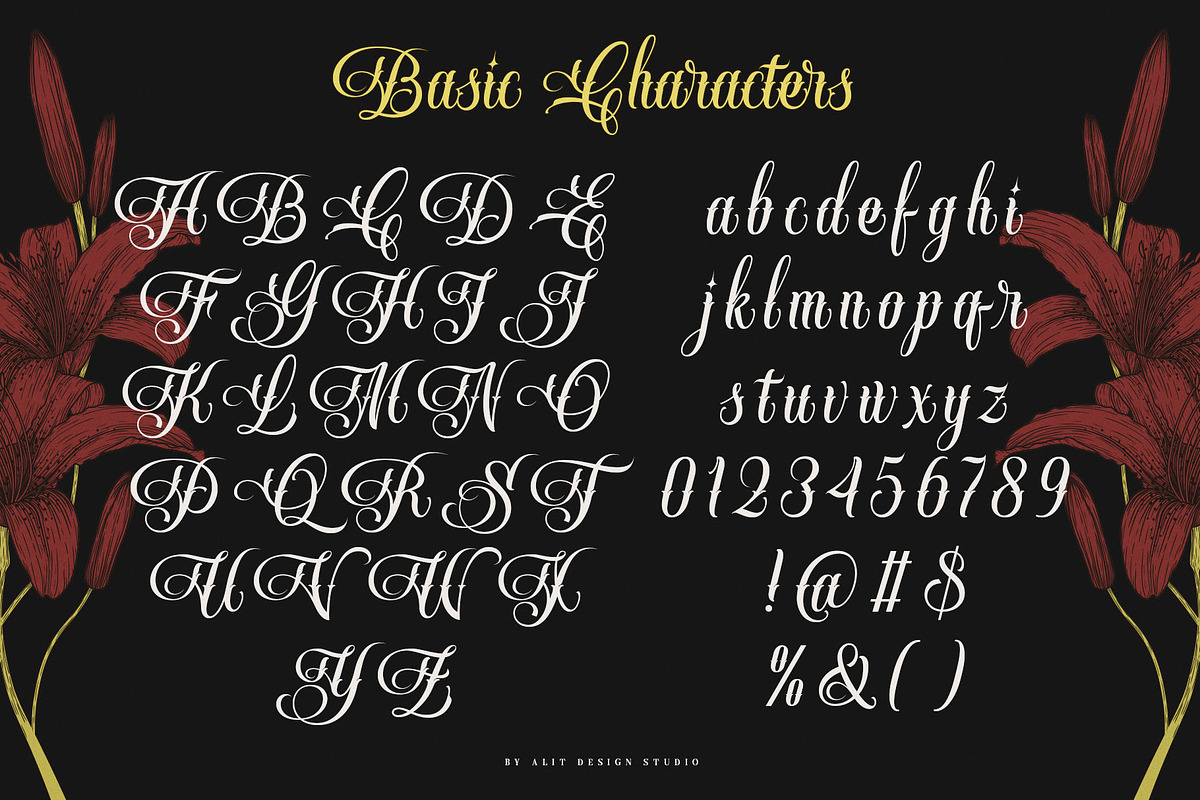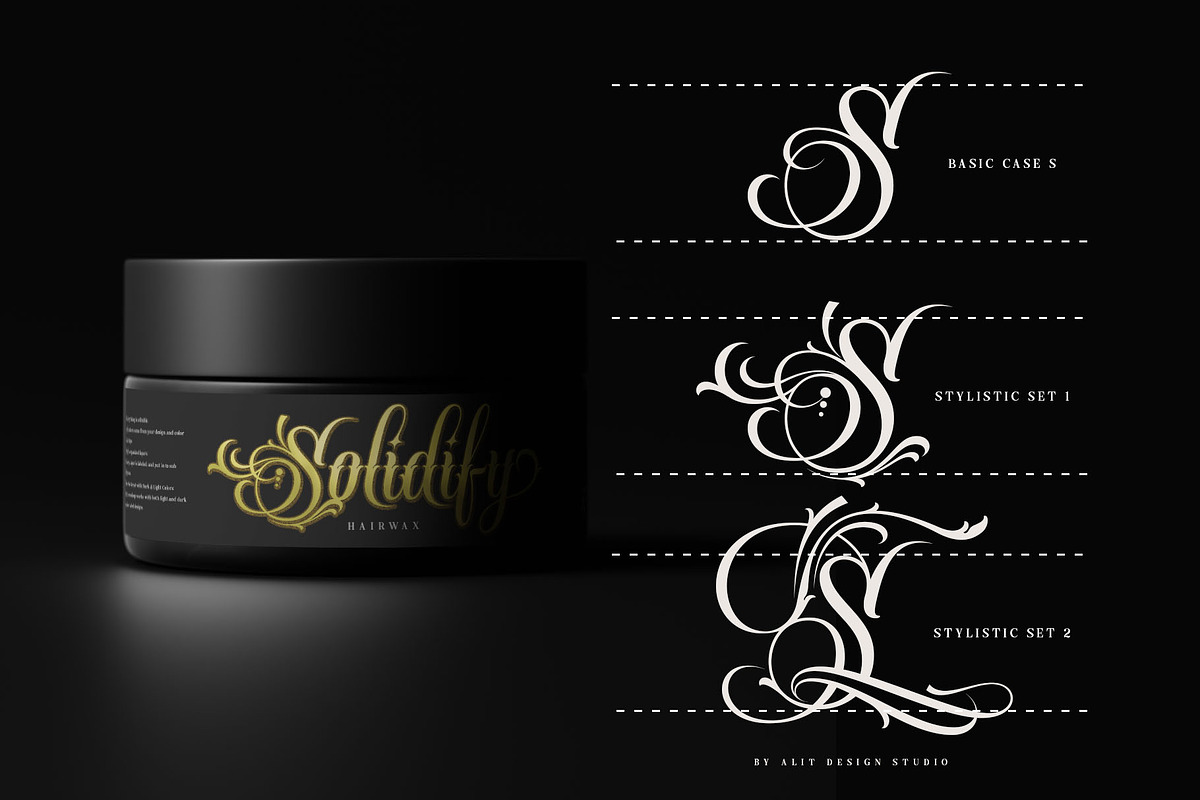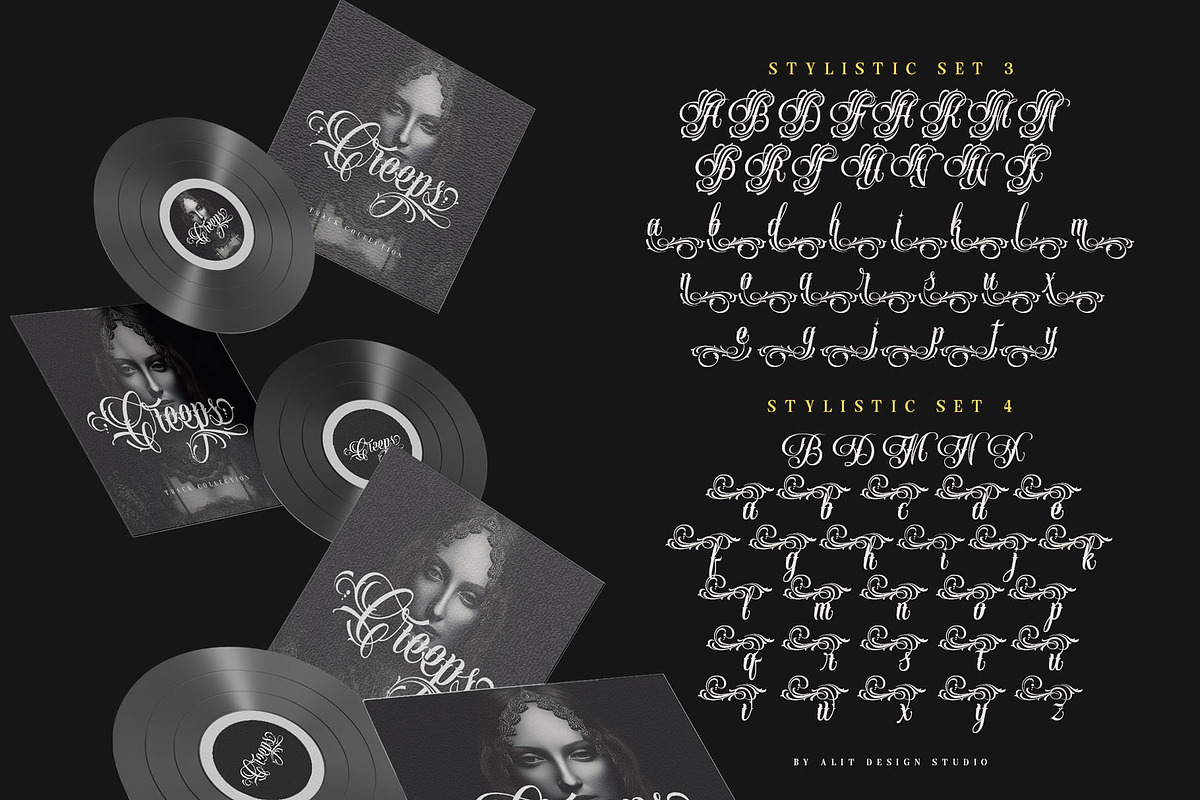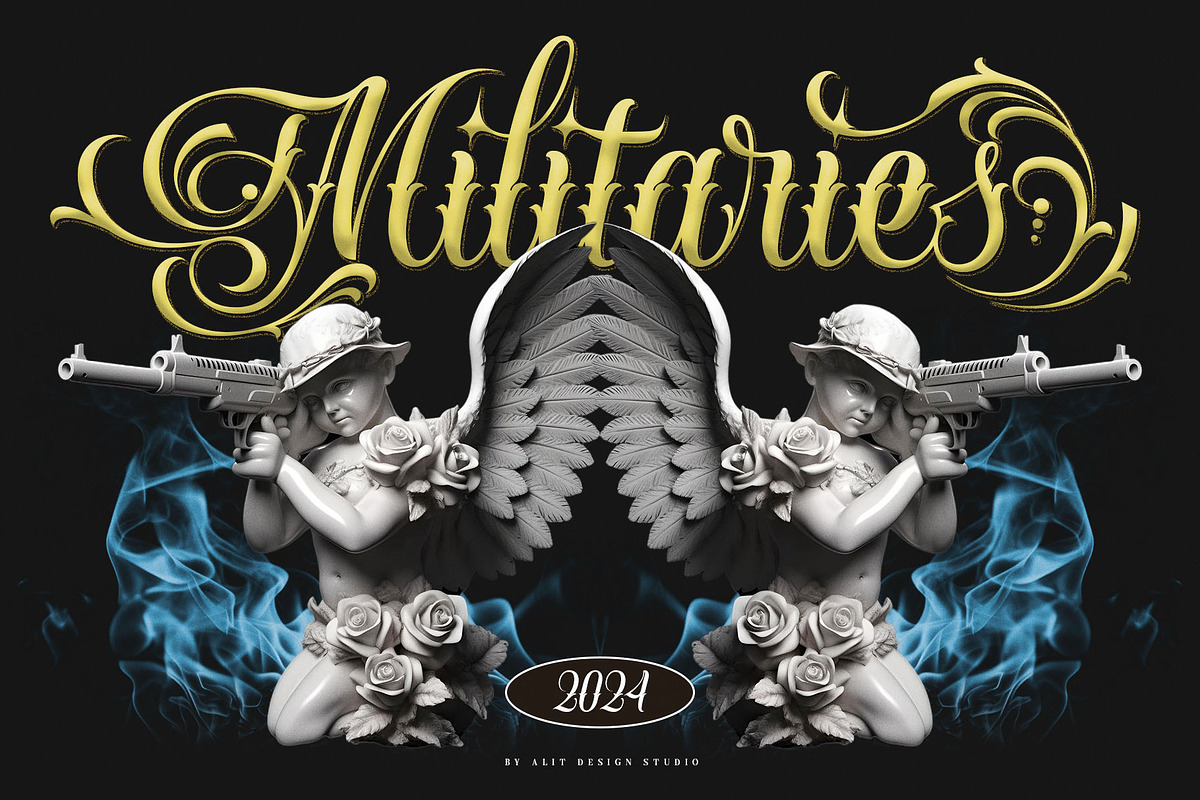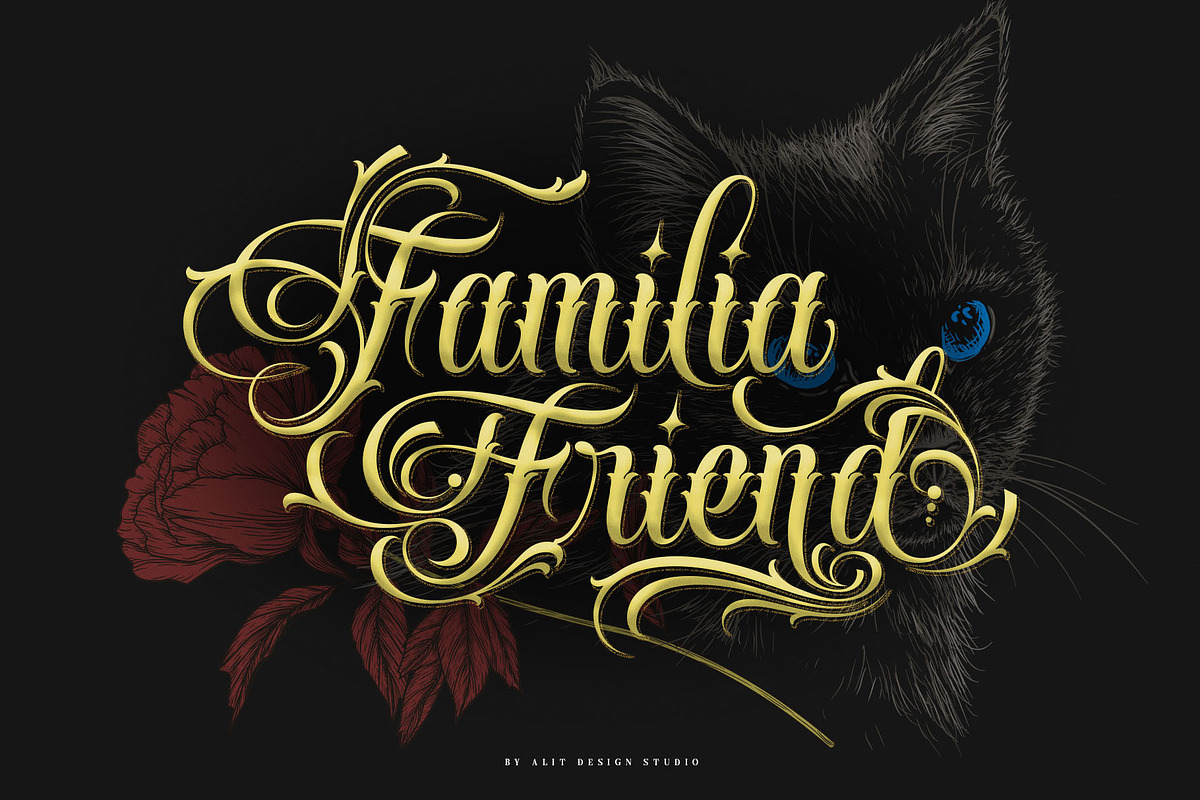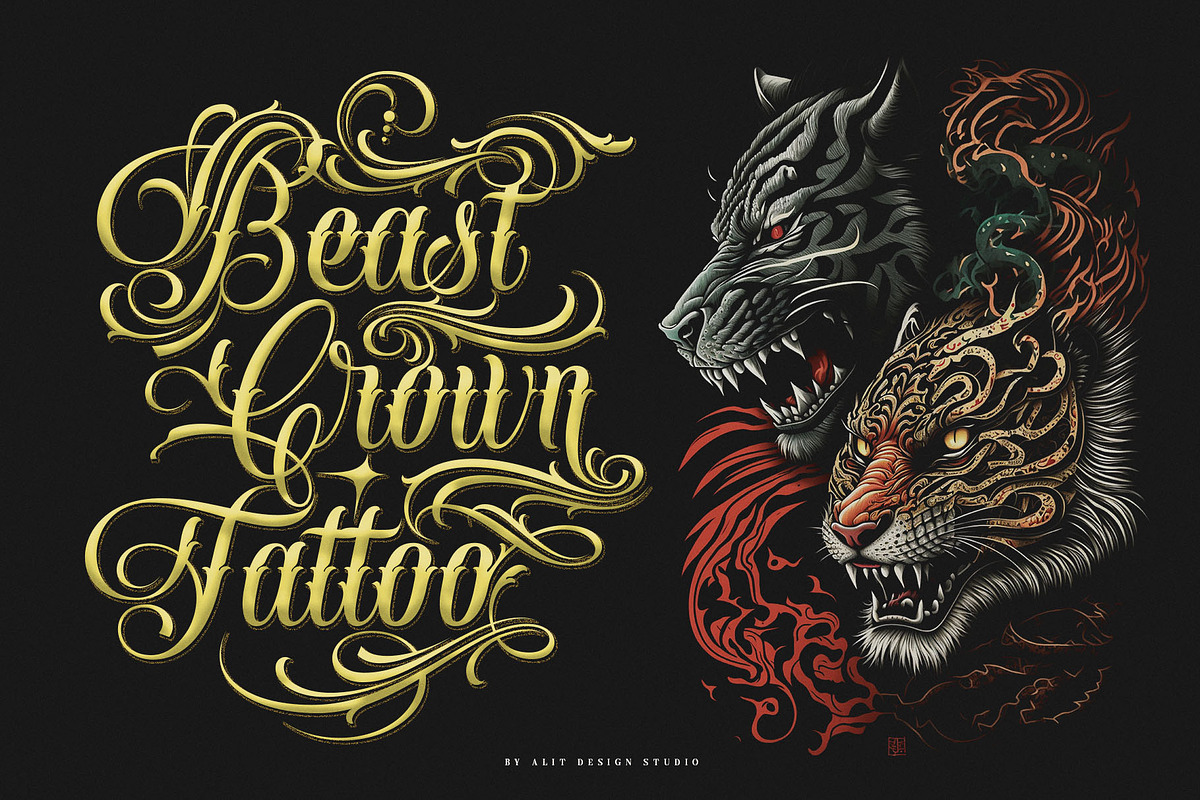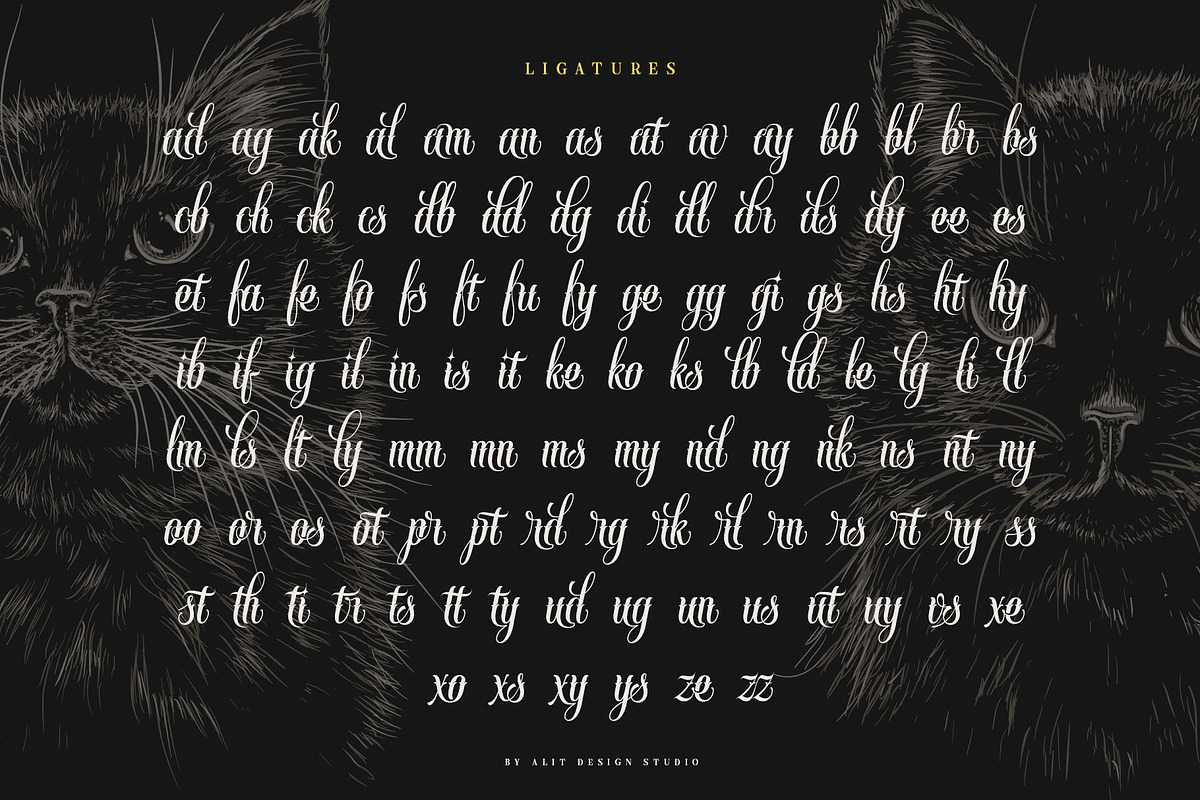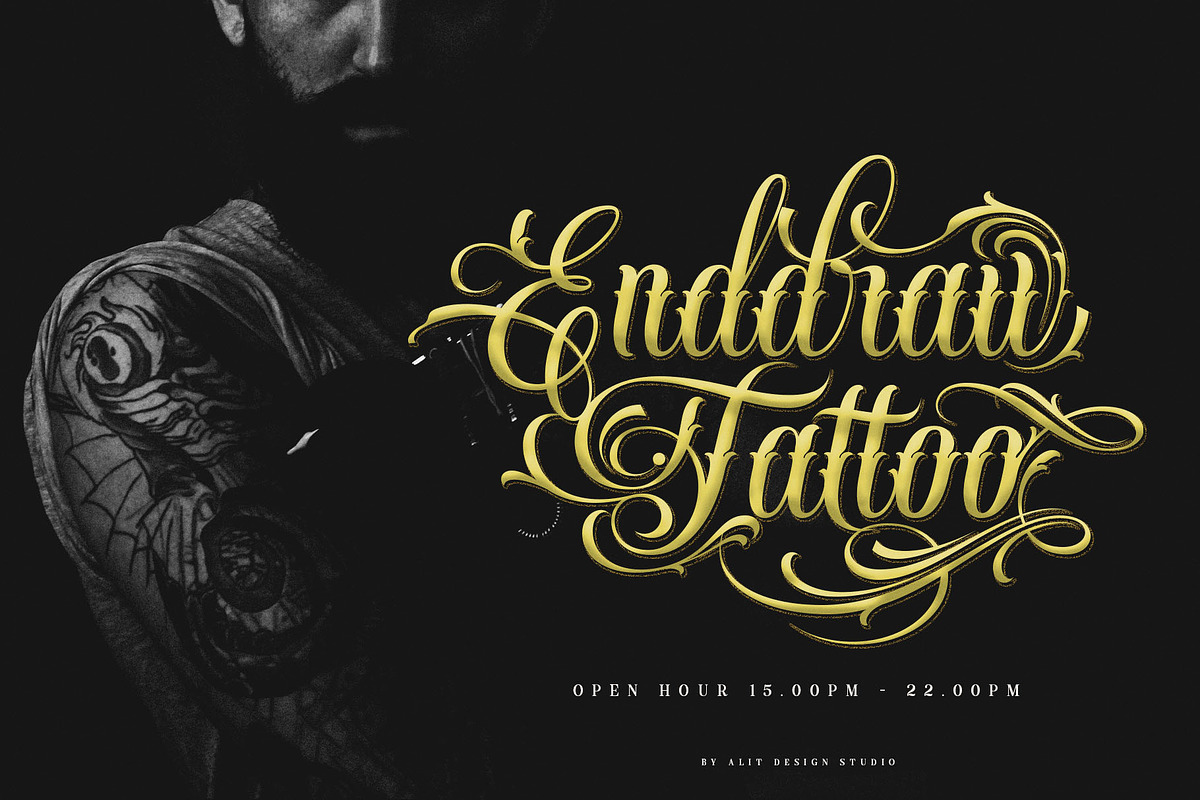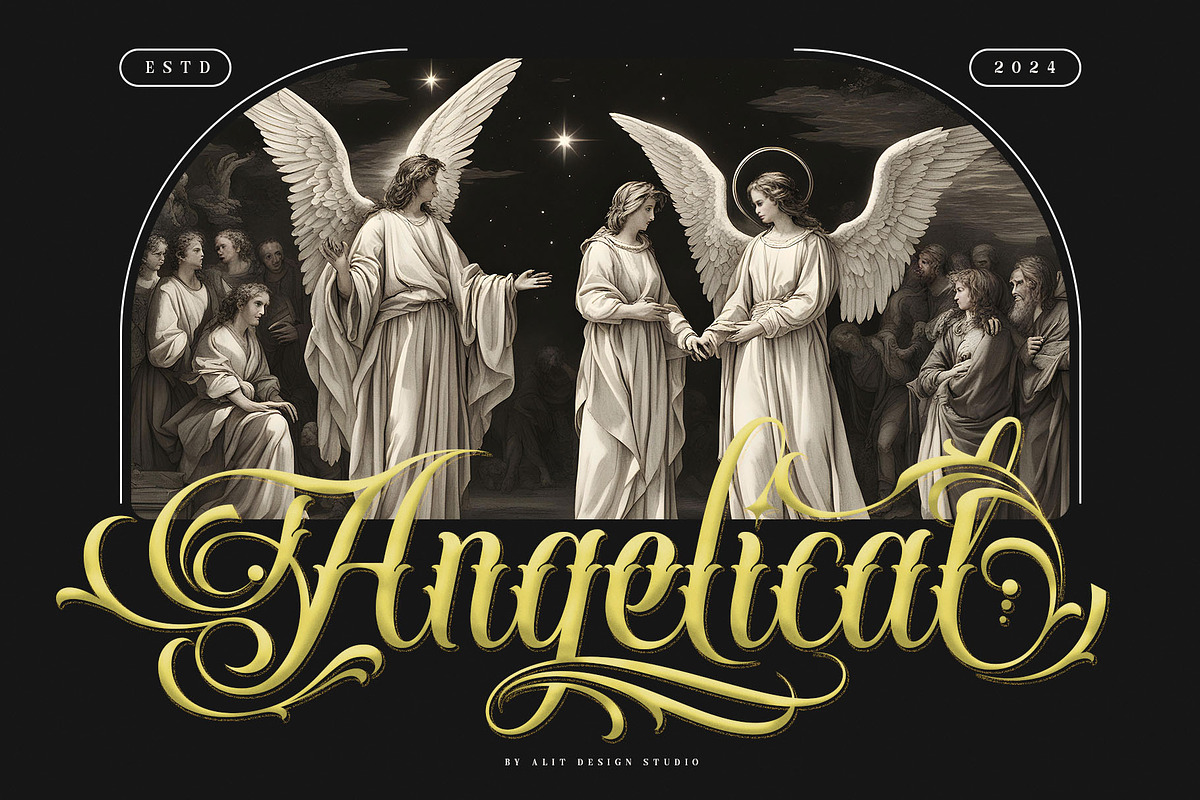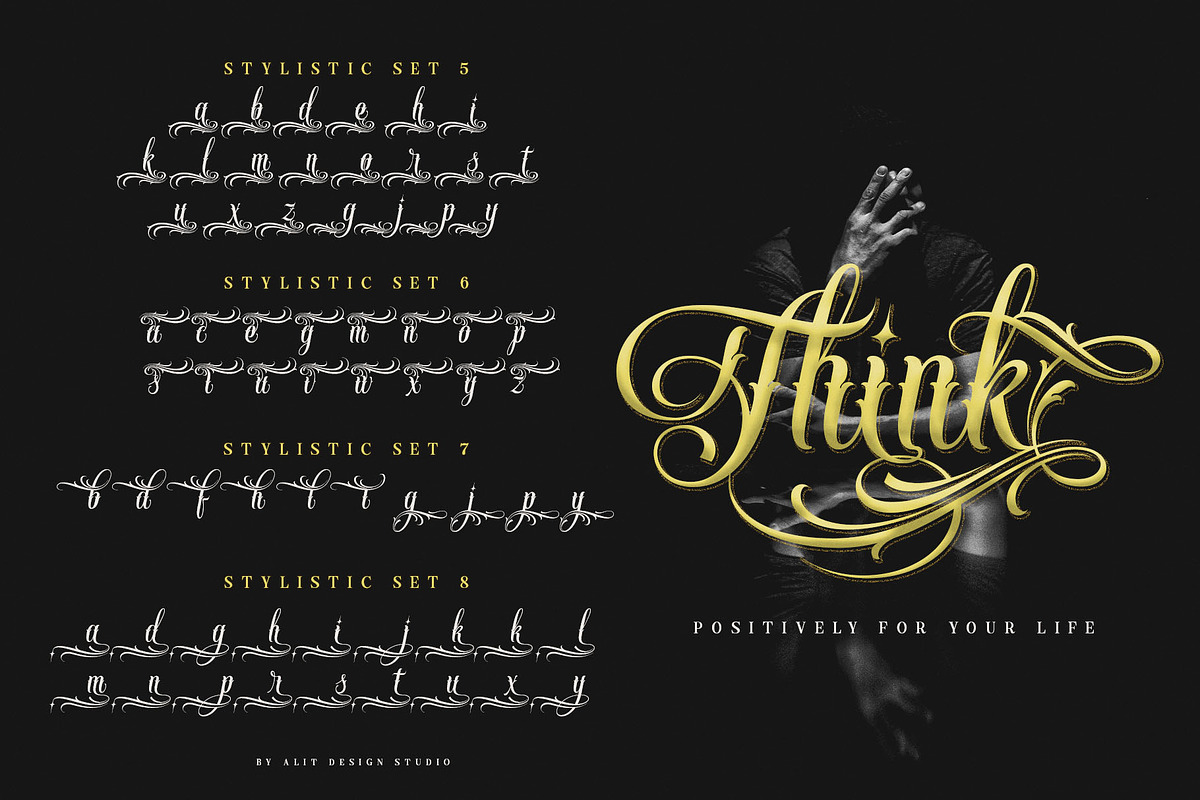
Handrid Familia Typeface
Handrid Familia Typeface The Handrid Familia Typeface embodies the essence of a traditional Mexican family script, infused with the bold and intricate swashes typical of Mexican gangster art and tattoos. Its design reflects a rich cultural heritage, blending elegance with a rugged, street-smart aesthetic.
817 Glyphs: A comprehensive set of 817 glyphs provides extensive creative freedom, ensuring that every letter, number, and symbol is meticulously crafted to maintain visual harmony and thematic consistency.
Ligature: This typeface includes a variety of ligatures, allowing for seamless connections between characters. These ligatures enhance the script's fluidity, making your text look more natural and aesthetically pleasing.
Swash: Handrid Familia boasts a range of swashes, adding decorative flourishes to your text. These swashes give your designs a distinctive flair, reminiscent of classic tattoo artistry and vintage signage.
Multilingual Support: With comprehensive multilingual support, Handrid Familia is designed to handle a wide array of languages. This makes it a versatile choice for projects with global reach.
OpenType Features: Fully compatible with all OpenType applications, the Handrid Familia Typeface offers advanced typographic capabilities. This ensures that you can take full advantage of its ligatures, swashes, and other stylistic elements in your design work.
Whether you're creating a logo, tattoo design, signage, or any other creative project, the Handrid Familia Typeface provides the tools to infuse your work with a unique and culturally rich aesthetic.